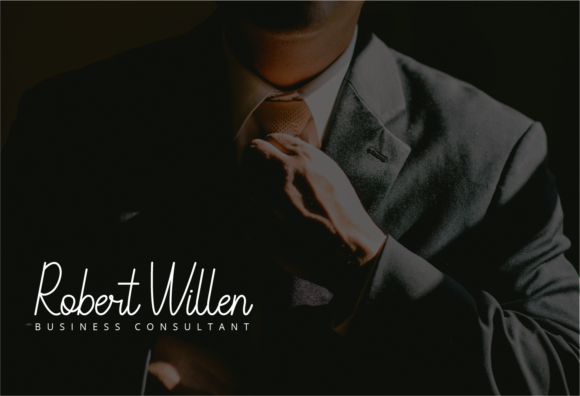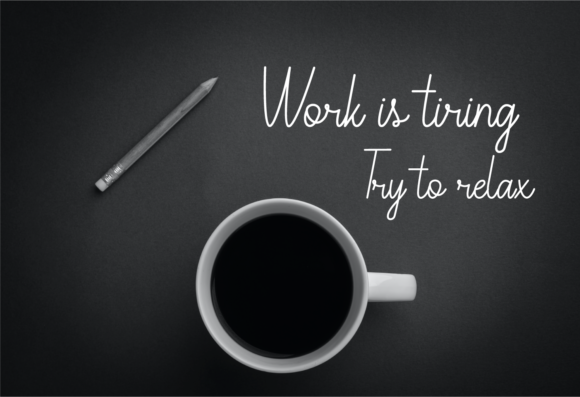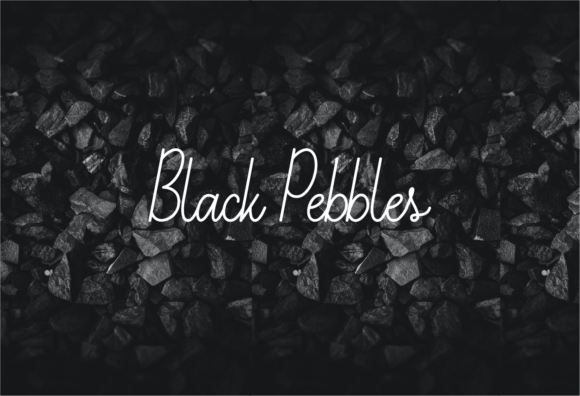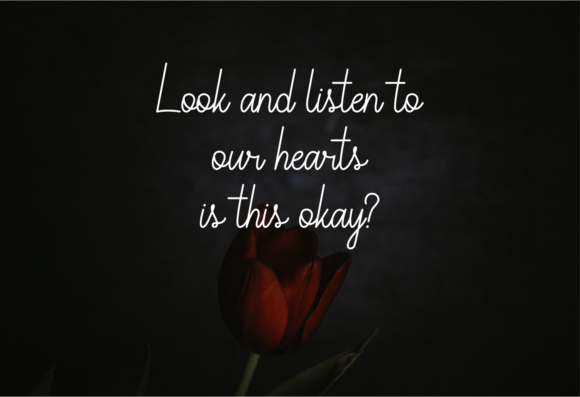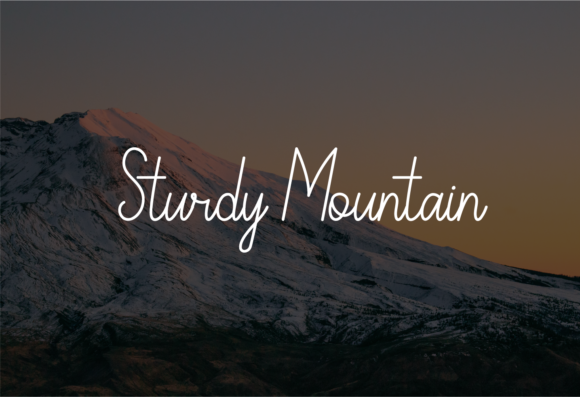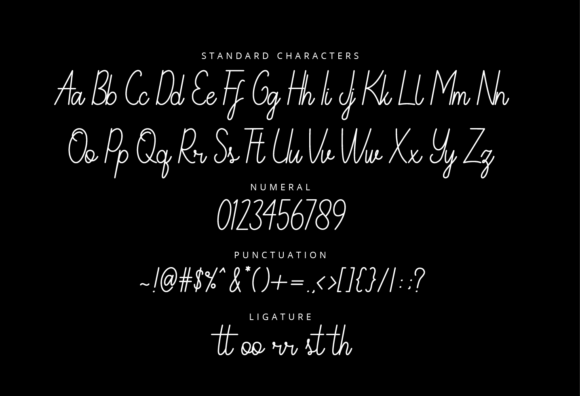
Introducing Emoly Signature Font: Add a Touch of Romance to Your Designs
Are you looking for a font that can add a romantic feel to your next project? Look no further than Emoly Signature Font, an enchanting handwritten script font that is sure to captivate your audience. With its elegant and flowing strokes, Emoly Signature is perfect for a wide range of applications, from greeting cards and invitations to headlines and branding.
What Makes Emoly Signature Font So Special?
Emoly Signature Font is a versatile script font that boasts a unique and distinctive style. Its handwritten charm and character make it perfect for designs that require a personal touch. The font’s elegant strokes and beautiful swashes add a touch of sophistication and romance, making it ideal for projects that require a high level of emotional connection.
Key Features of Emoly Signature Font
- Handwritten script font: Emoly Signature Font is a genuine handwritten script font, giving it a personal and authentic feel.
- Enchanting and elegant: The font’s flowing strokes and beautiful swashes add a touch of romance and sophistication to any design.
- Versatile: Emoly Signature Font can be used for a wide range of applications, from greeting cards and invitations to headlines and branding.
- Easy to read: Despite its elegant and cursive nature, Emoly Signature Font is easy to read, making it perfect for body text and headlines.
Use Cases for Emoly Signature Font
Emoly Signature Font is perfect for designers and crafters who want to add a touch of romance and elegance to their projects. Here are some use cases for this beautiful font:
- Greeting cards and invitations: Emoly Signature Font is perfect for creating beautiful and heartfelt greeting cards and invitations for special occasions.
- Headlines and branding: The font’s elegant and sophisticated style makes it ideal for headlines, logos, and branding projects.
- Wedding and event planning: Emoly Signature Font is a popular choice for wedding and event planners who want to add a touch of romance and elegance to their designs.
- Stationery and packaging: The font’s versatile style makes it perfect for stationery, packaging, and product design.
| Font Name | Emoly Signature Font |
| Author | Moshatype |
Emoly Signature Font is a beautiful and enchanting handwritten script font that is sure to add a romantic feel to your next project. With its elegant strokes, beautiful swashes, and versatile style, it’s perfect for a wide range of applications, from greeting cards and invitations to headlines and branding. Whether you’re a designer, crafter, or DIY enthusiast, Emoly Signature Font is a must-have font that will take your designs to the next level.